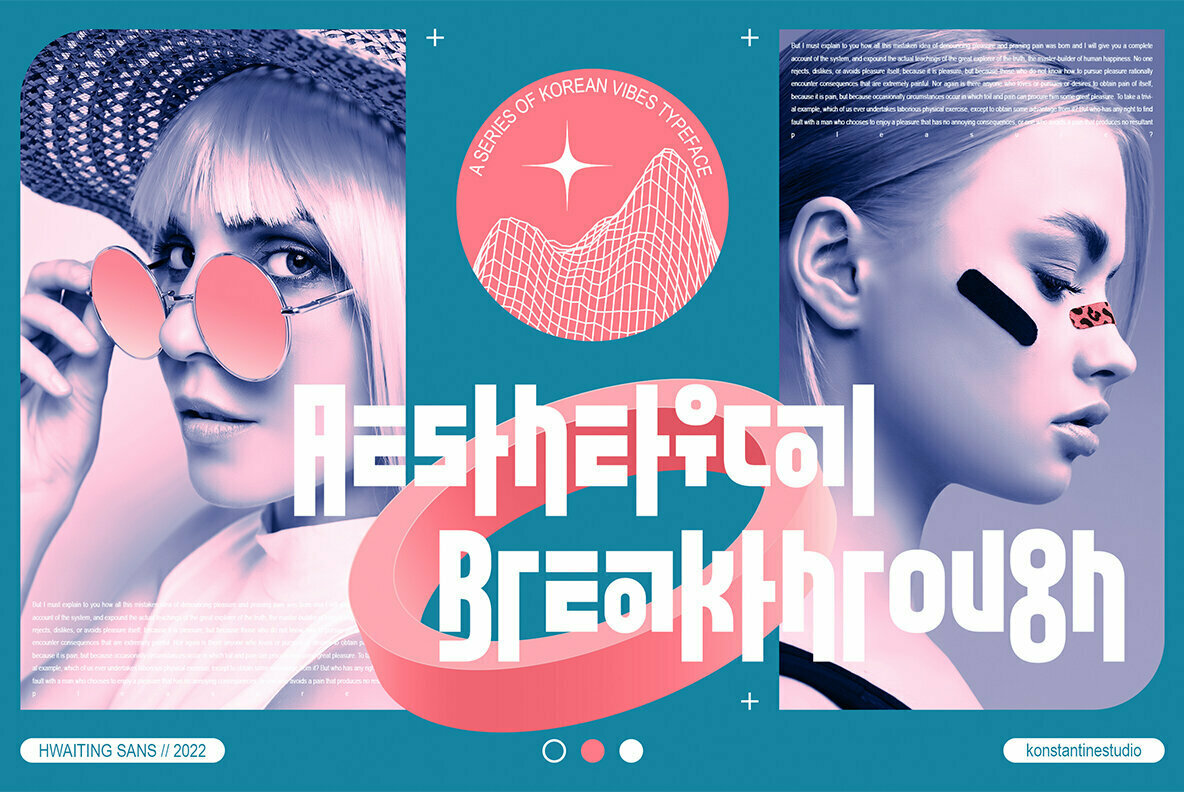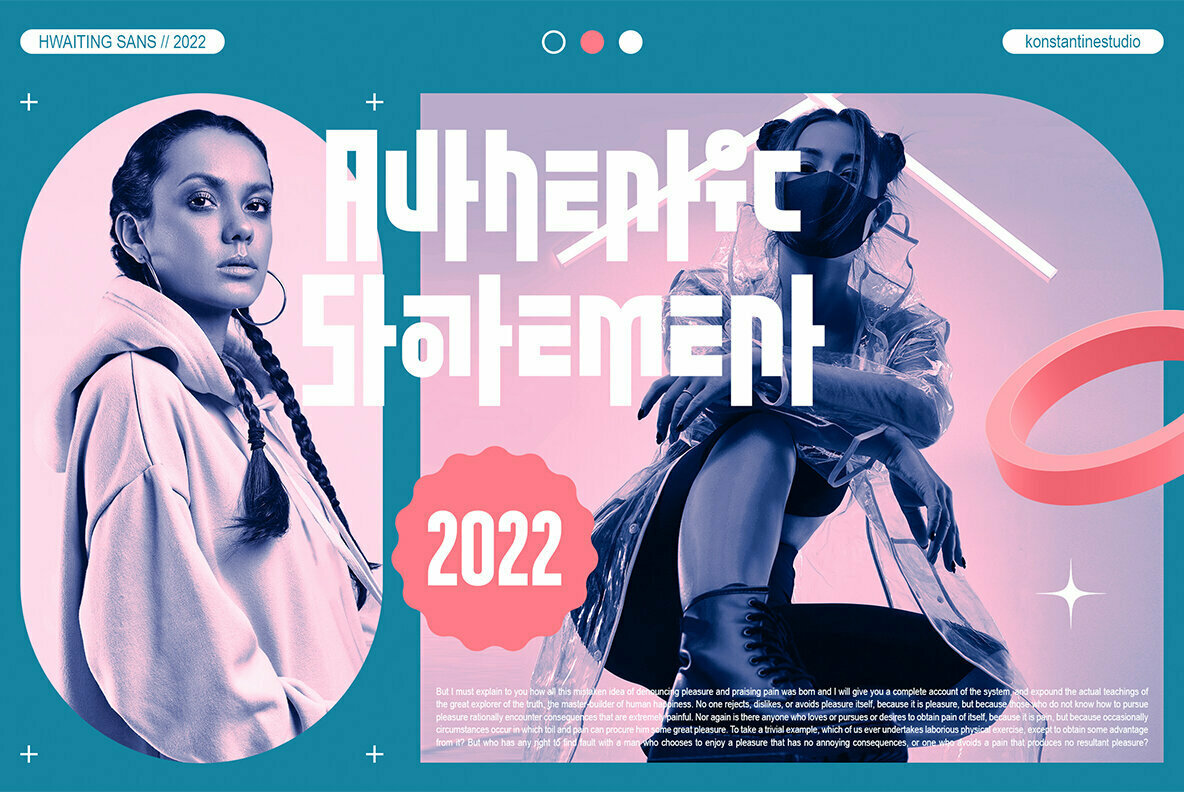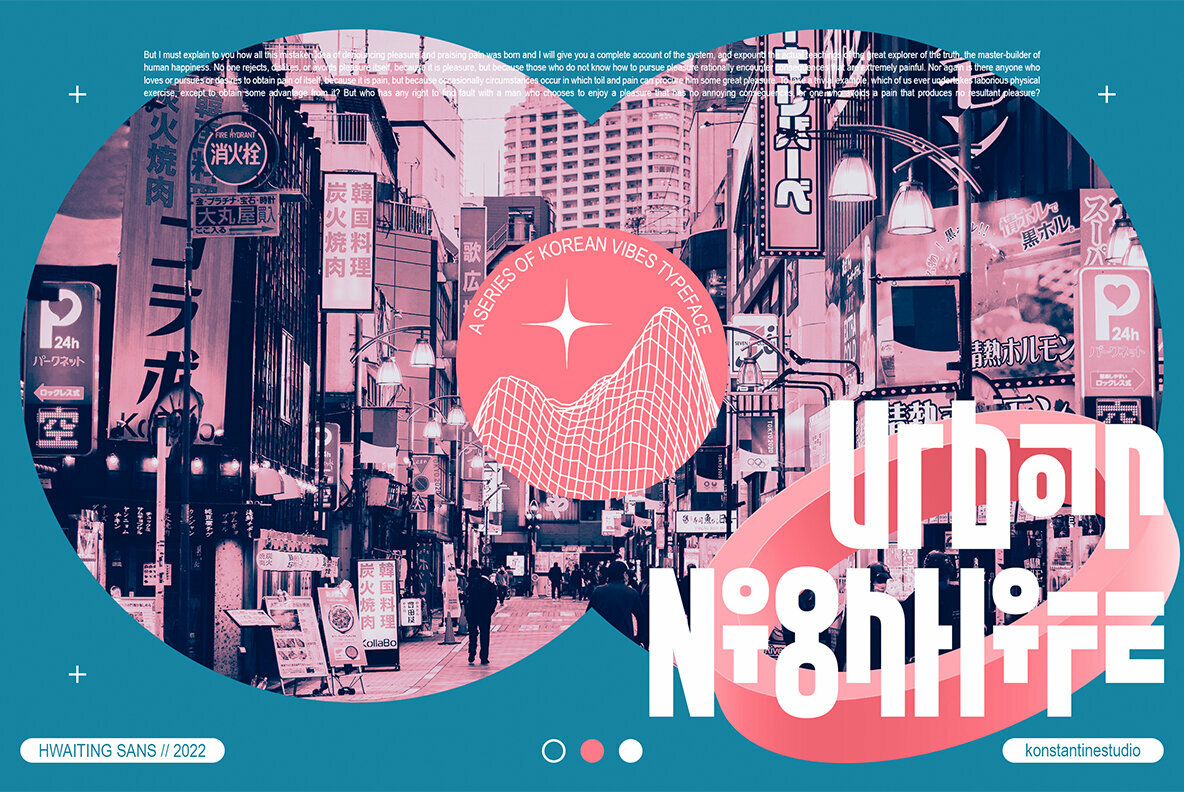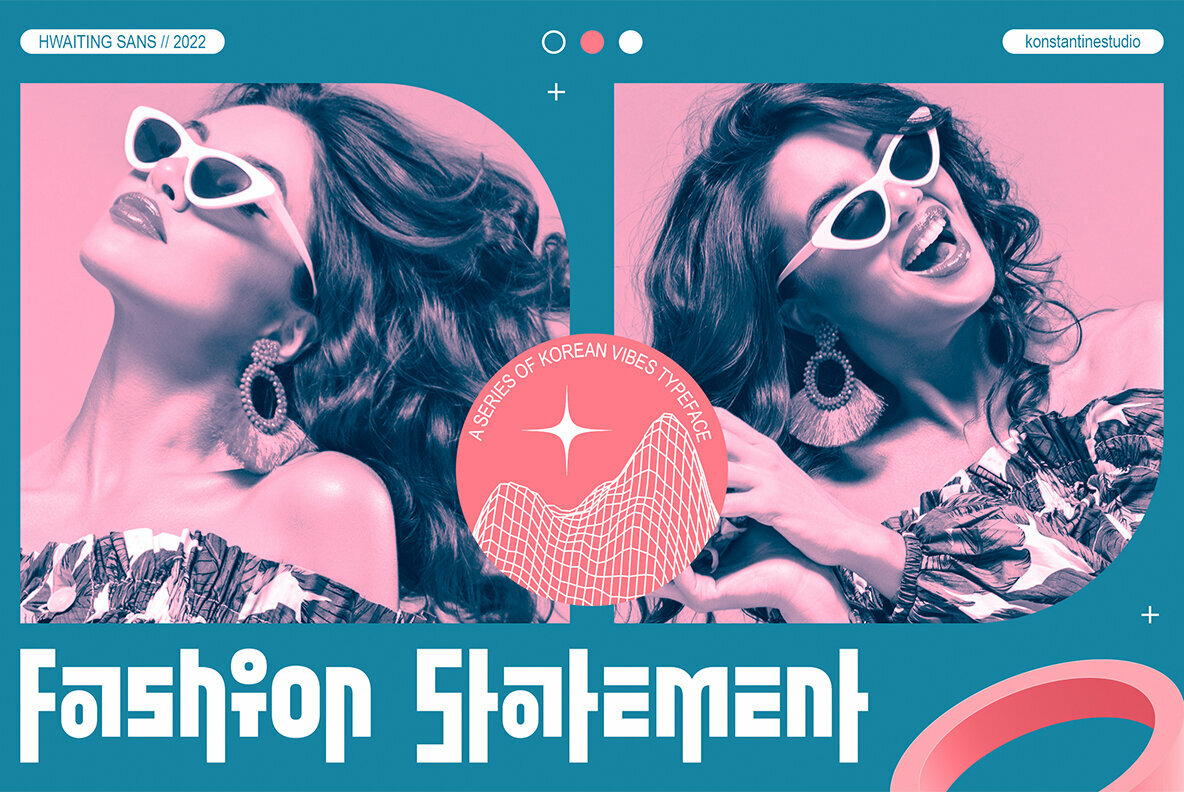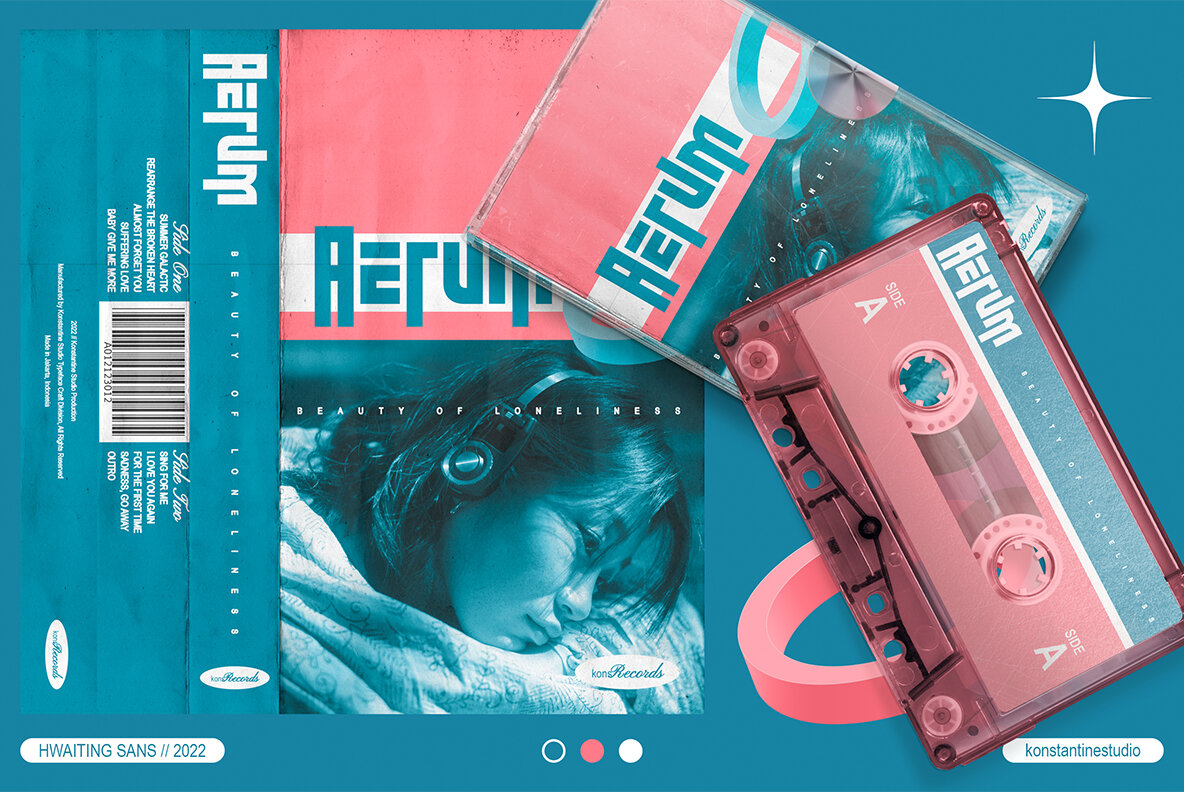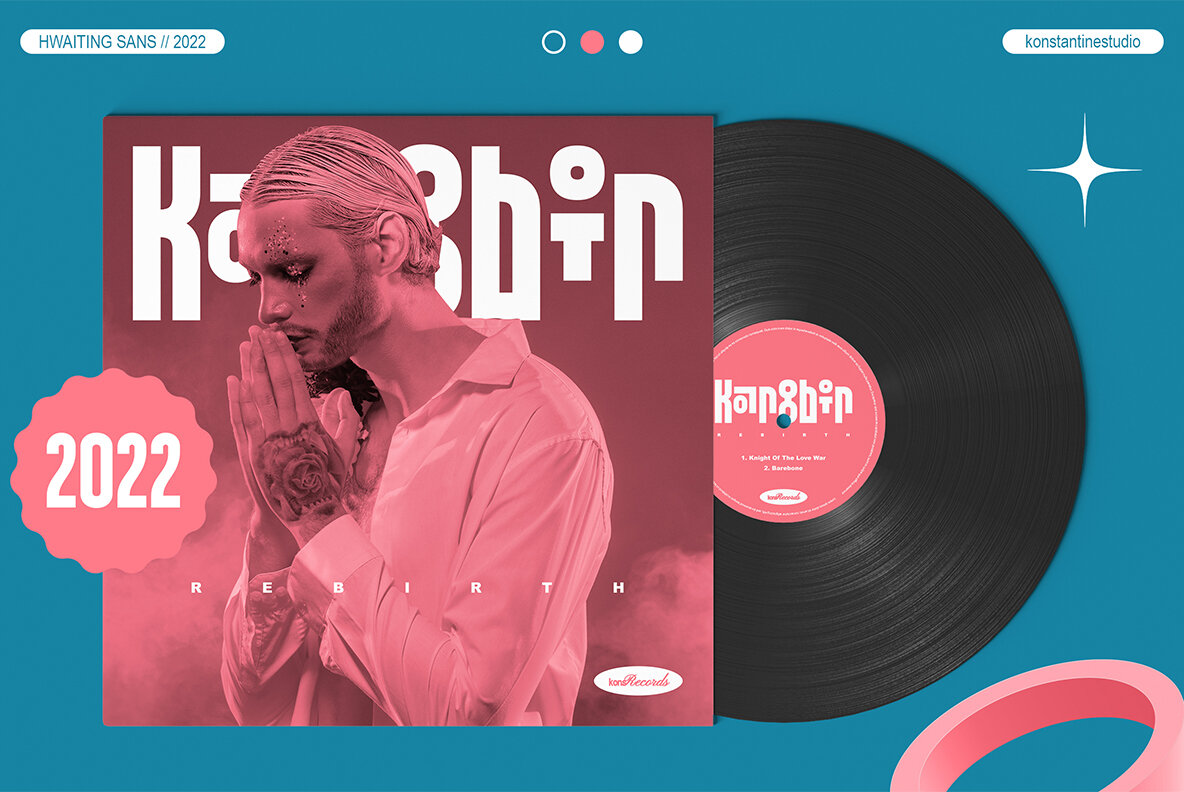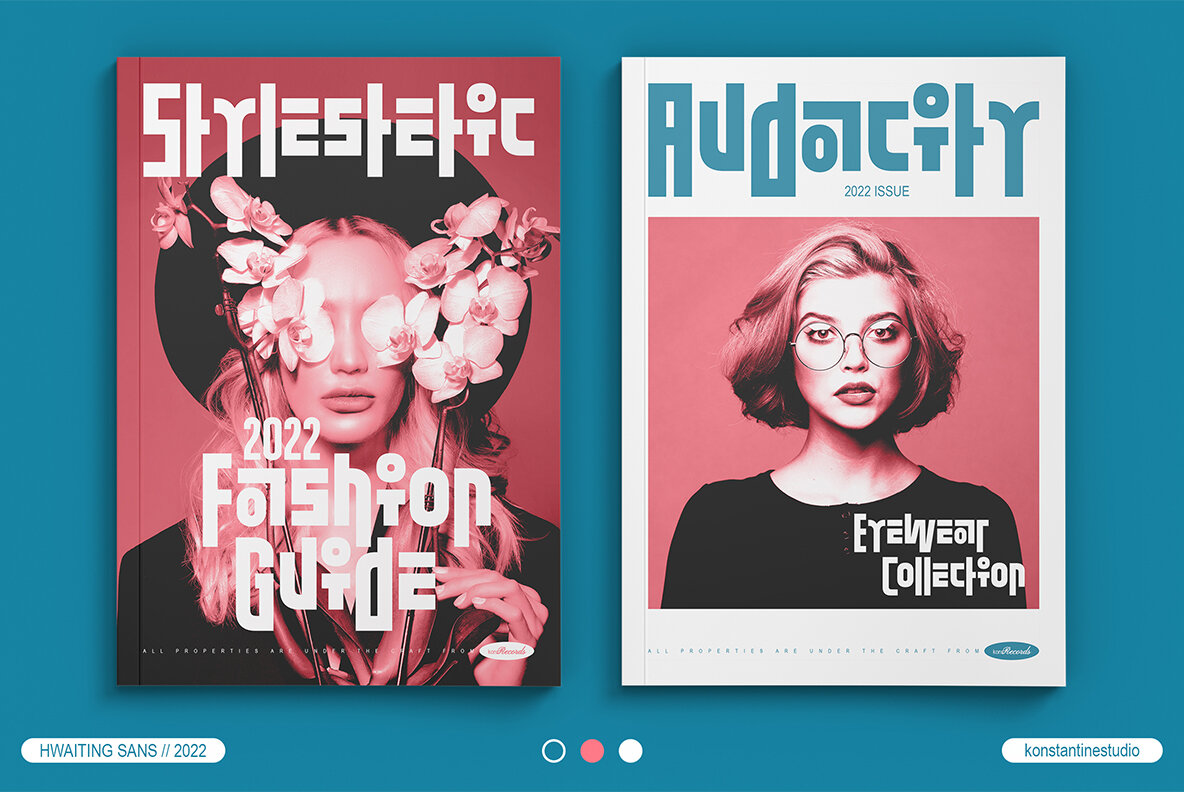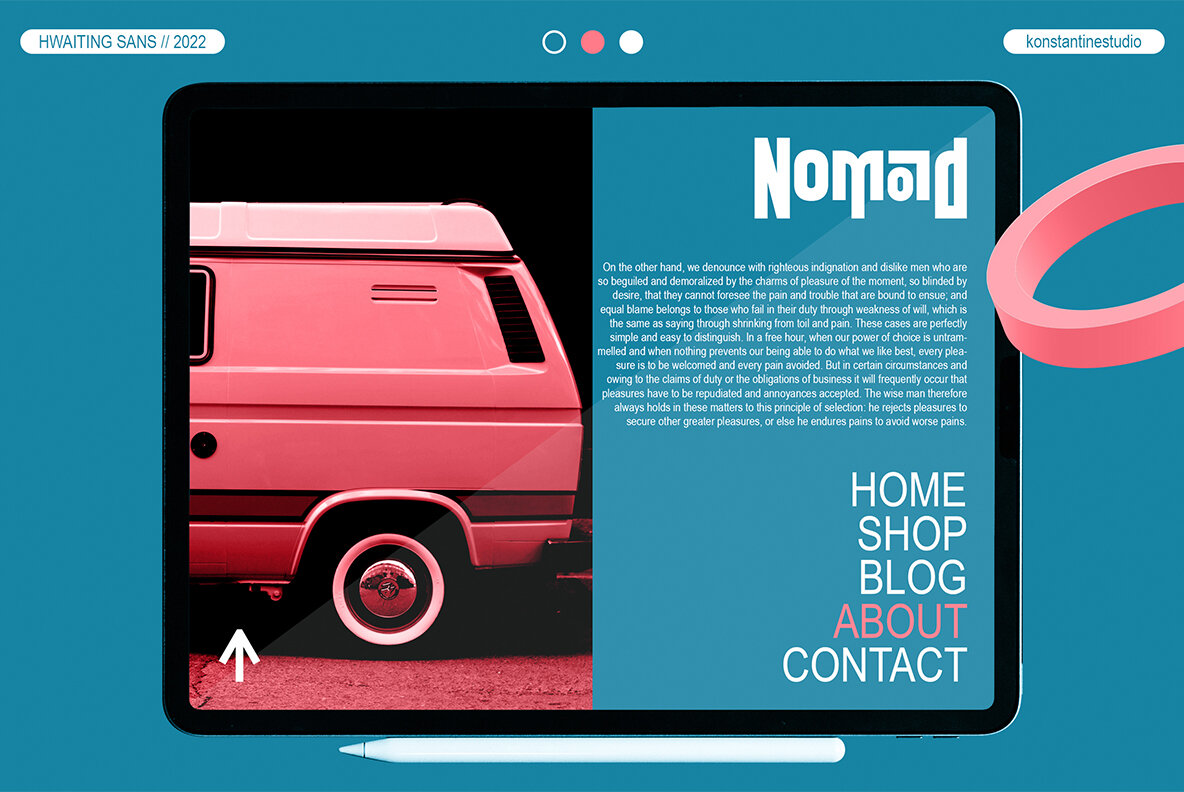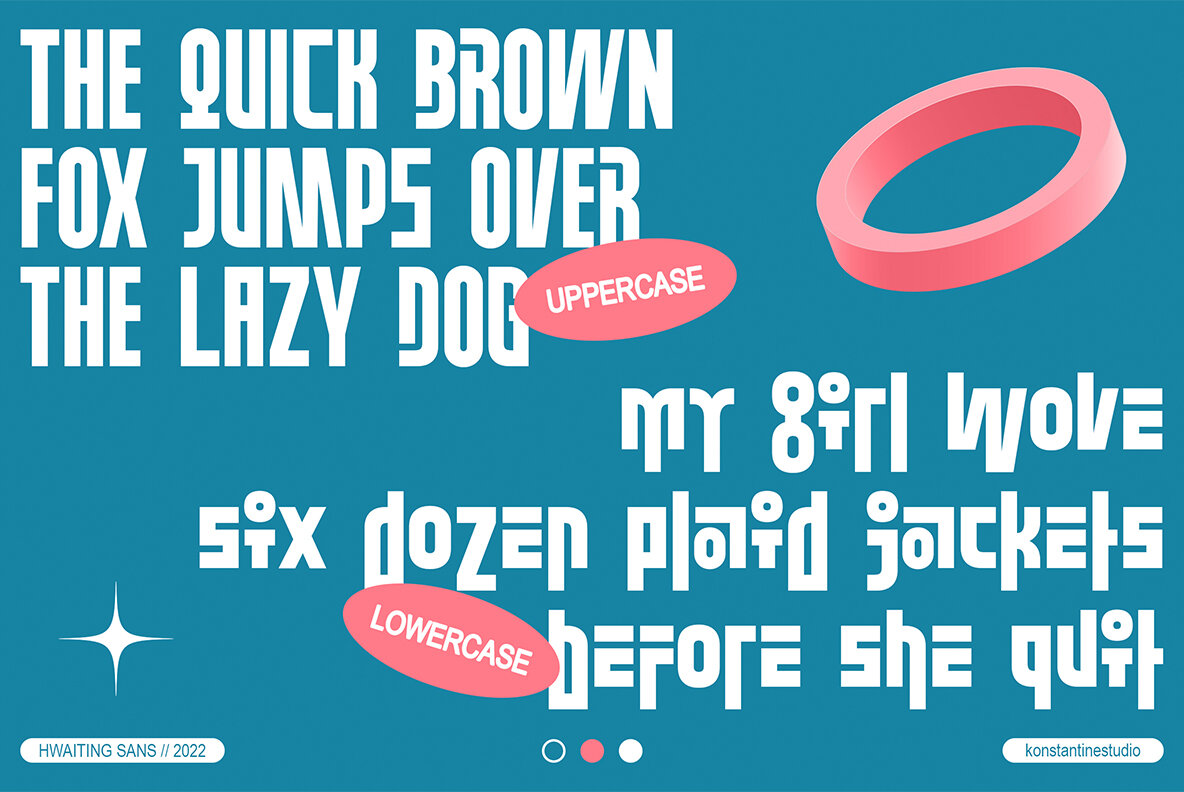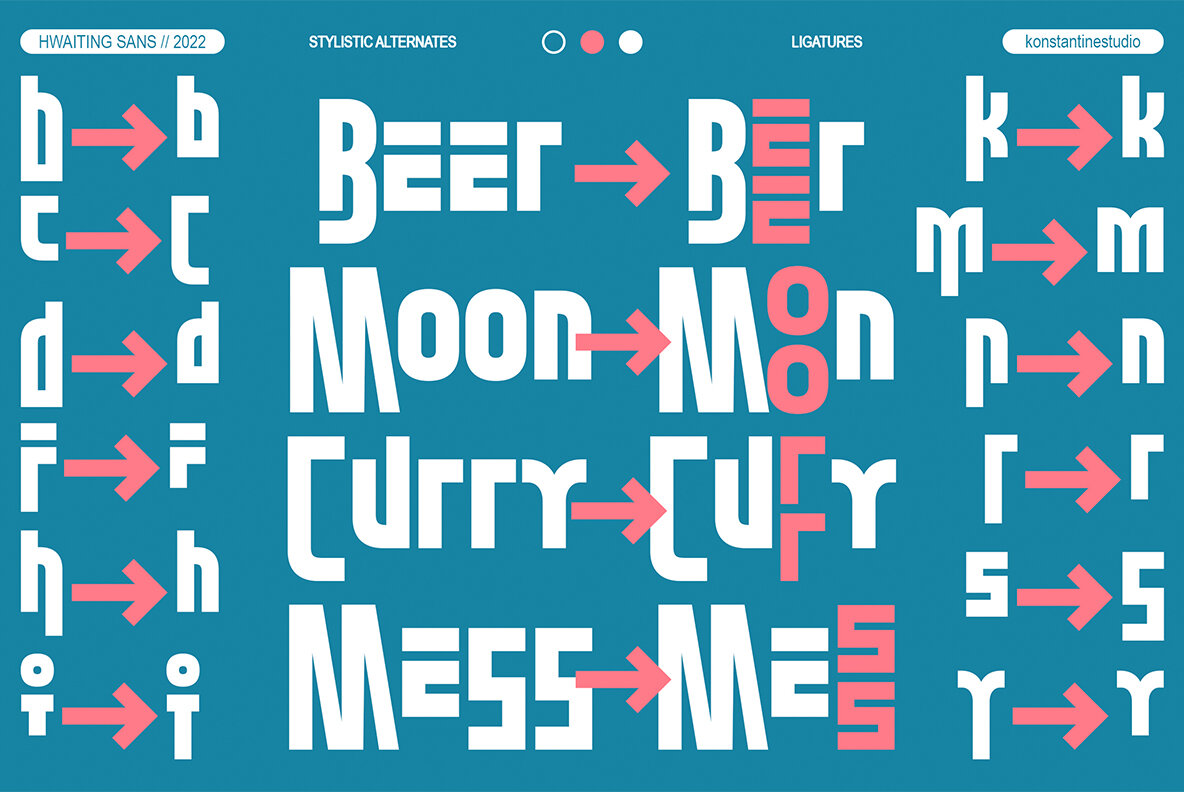
Hwaiting Sans Font
Inspired by the emerging Korean culture that grabbing the worldwide actuation in so many realms of the industry. To bridge the vibes and to make it easier to consume, we found the gap to fill with simple things in life that are useful for it, and yes, it’s a new day it’s a new font.
So without any further ado, please welcome Hwaiting Sans. 2/3 series of Korean vibes typefaces. It’s a sans-serif font with bold and strong vibes to catch up with today’s graphic design trends.
Crafted with deep research about Korean traditional letters, shaped up with the approach of universal Latin letters.